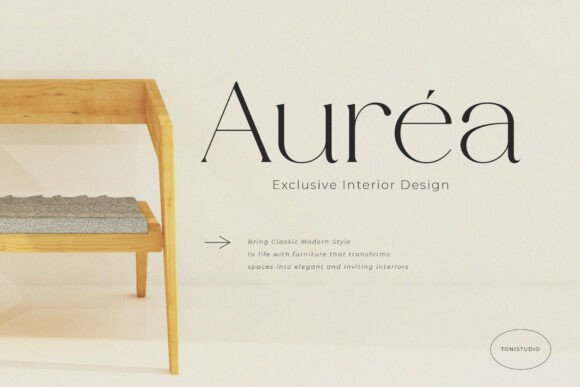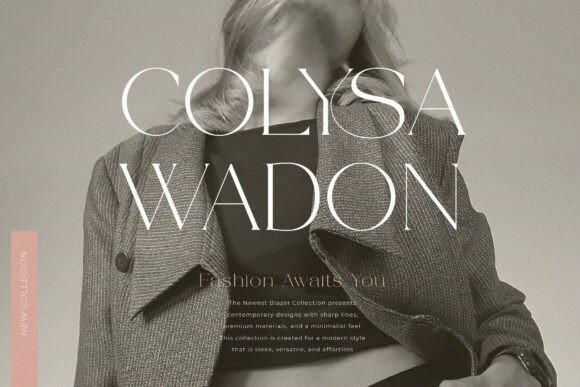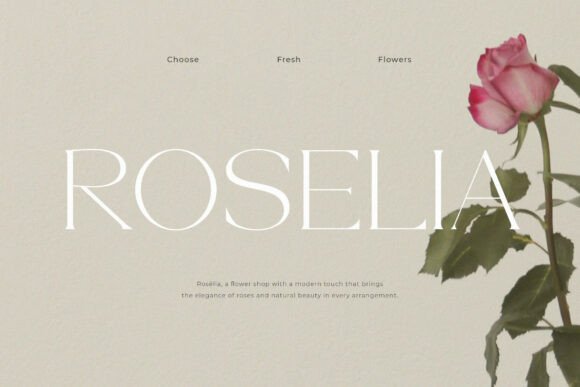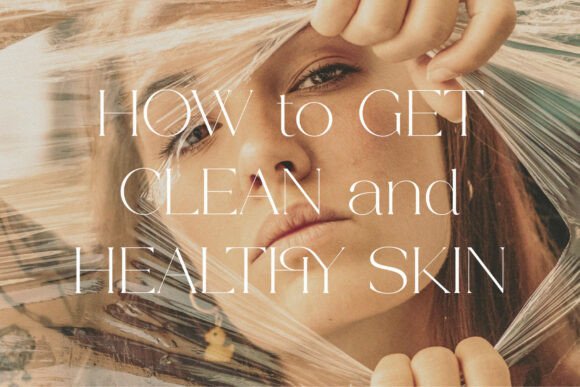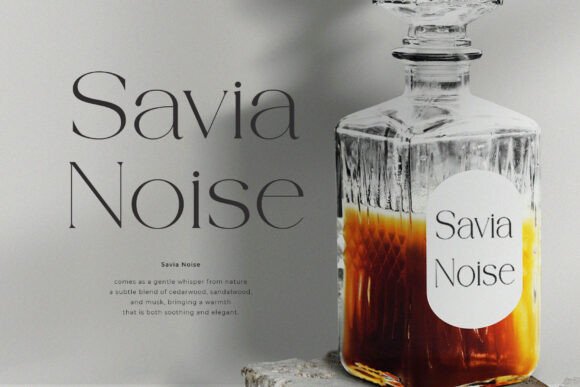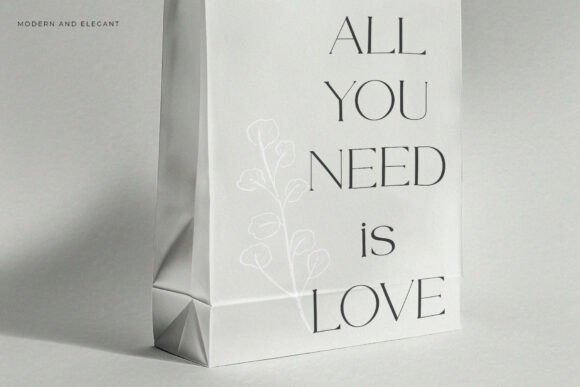
Timeless Elegance for Your Next Design Project
Have you ever stared at a blank page, trying to find the perfect font to convey the essence of your creative vision? The struggle is real, but what if you stumbled upon a font that effortlessly combines classic sophistication with modern flair? Enter the Bhyora Font, a modern serif font designed to elevate your design projects to new heights.
Bhyora Font is more than just a font – it’s a reflection of refinement and strength. Its unique blend of sharp serifs and smooth curves makes it a versatile choice for branding, logos, editorial design, and so much more. Whether you’re working on a fashion project, packaging, or wedding invitations, Bhyora Font is sure to leave a lasting impression. With its carefully crafted characters exuding confidence, femininity, and luxury, it’s no wonder designers swear by this elegant font.
Bhyora Font Key Features
- Font Family: Bhyora Font comes in a single font family with multiple weights and styles.
- Unique Characteristics: Bhyora Font features a unique blend of traditional and modern design elements, with intricate details and flourishes that add a touch of elegance to any text.
Bhyora Font Review
I recently had the chance to work with the Bhyora Font, and I must say, it’s a unique and intriguing addition to any design project. Here are my honest thoughts on this font.
- ✨ Versatility: Bhyora Font is a highly versatile font, suitable for various design projects, from logos to body text.
- ✨ Distinctive Features: The font’s distinctive features, such as the curved lines and rounded edges, add a touch of elegance and sophistication to any design.
- ✨ Legibility: Despite its unique design, Bhyora Font is surprisingly legible, making it a great choice for projects where readability is crucial.
- ⚠️ Limited Character Set: The font’s character set is limited, which may make it less suitable for projects that require a wide range of special characters.
- ⚠️ Not Ideal for Small Text: Bhyora Font can become difficult to read when used in small text sizes, which may limit its use in certain design projects.
Overall, I would say that Bhyora Font is a solid choice for designers looking to add a touch of elegance and sophistication to their projects. While it may have some limitations, its versatility and distinctive features make it a worthwhile addition to any design arsenal.
Tips for Getting the Most Out of Bhyora Font
To get the most out of Bhyora Font, try the following:
- Combine Bhyora Font with other fonts for a unique and creative look.
- Use Bhyora Font for headings and titles to create a bold and eye-catching effect.
Bhyora Font is perfect for:
- Designing creative and modern logos.
- Creating eye-catching headings and titles.
- Adding a touch of elegance to wedding invitations and other special occasion designs.
Alternatives to Bhyora Font for Designers
Open Sans is a modern sans-serif font that is highly legible and versatile. It is suitable for digital and print materials, including websites, mobile apps, and publications. When to use: For clean and minimalist designs, Open Sans is a great alternative to Bhyora Font. It is more neutral and lacks the quirky feel of Bhyora Font.
Lato is a sans-serif font with a humanist touch, making it suitable for a wide range of applications, from corporate identities to digital products. It is highly legible and has a clean, modern feel. When to use: For projects that require a clean and elegant look, Lato is a great alternative to Bhyora Font. It is more polished and refined than Bhyora Font.
Montserat is a sans-serif font inspired by the urban environment of Buenos Aires. It is highly legible and has a strong, geometric feel. When to use: For projects that require a strong, urban feel, Montserrat is a great alternative to Bhyora Font. It is more edgy and modern than Bhyora Font.
Inter is a sans-serif font designed by Microsoft, known for its high legibility and versatility. It is suitable for digital and print materials, including websites, mobile apps, and publications. When to use: For projects that require a clean and modern look, Inter is a great alternative to Bhyora Font. It is more neutral and lacks the quirky feel of Bhyora Font, but has a more modern feel than Open Sans.